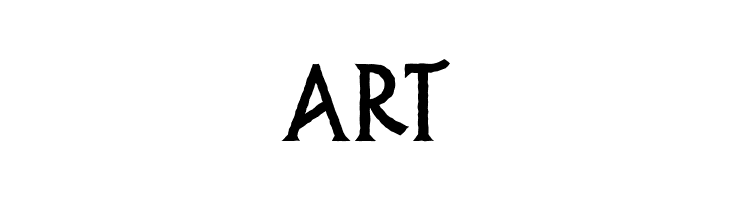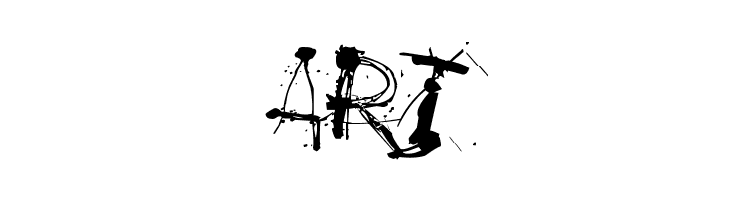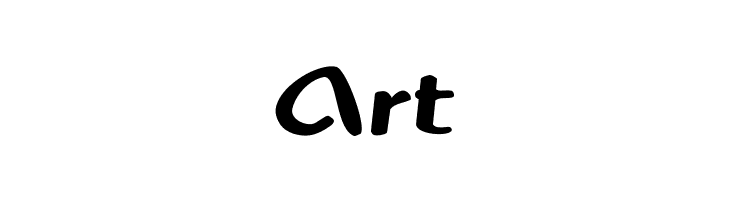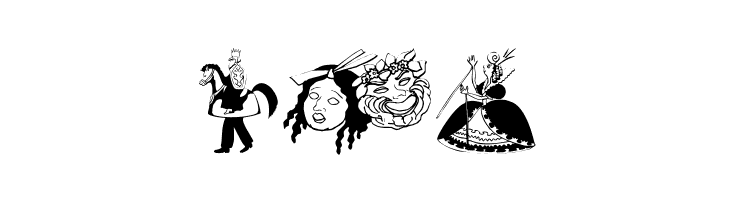
A chaotic, grunge-style font with splattered, energetic brushstrokes.
A playful, puppet-themed decorative font with illustrated characters for each glyph.
A playful, rounded font with whimsical, decorative elements.
A bold, geometric font with sharp angles and a modern style.
A bold, geometric font with sharp edges and a modern style.
A playful, bold, and handwritten-style font with rounded characters.
A whimsical, hand-drawn font with an ancient, mythical feel.